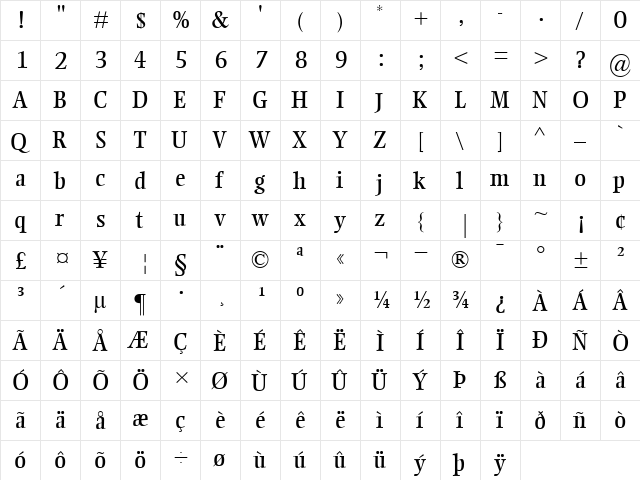
EllingtonMT Roman
Design Context for EllingtonMT Typeface
EllingtonMT takes a measured approach to typography — its balanced proportions and neutral character make it a reliable workhorse for both digital and print work.